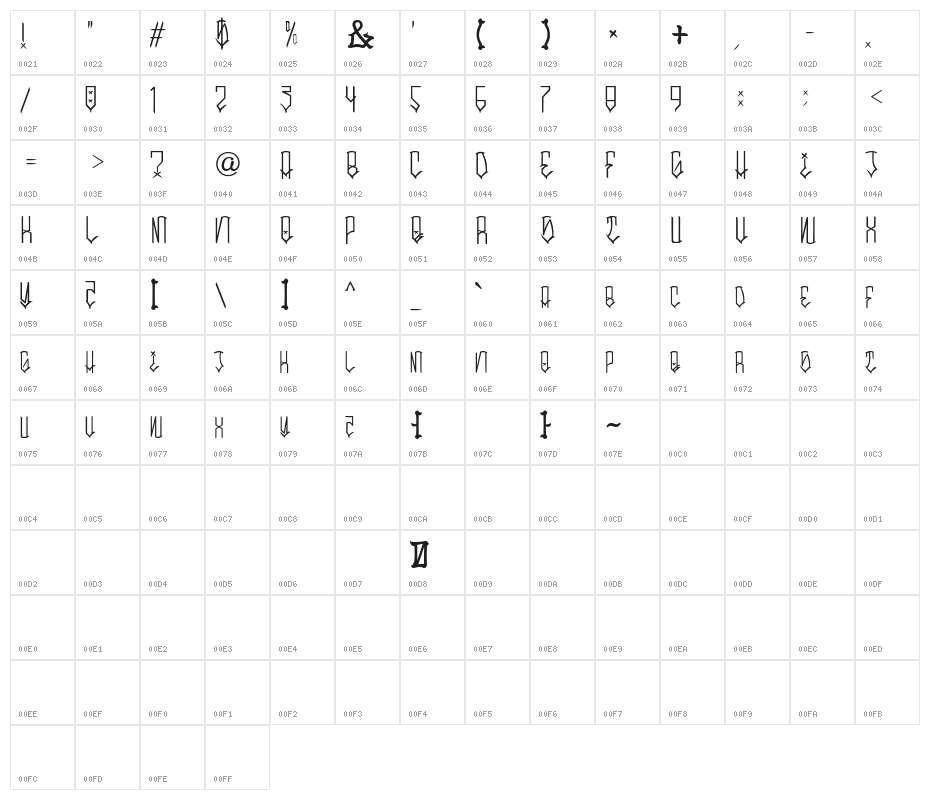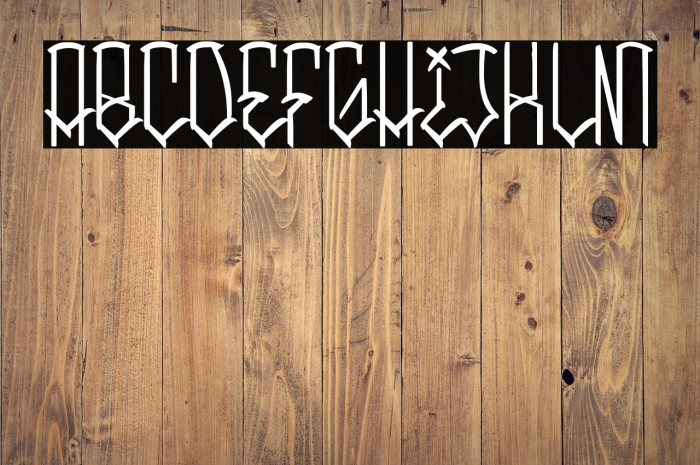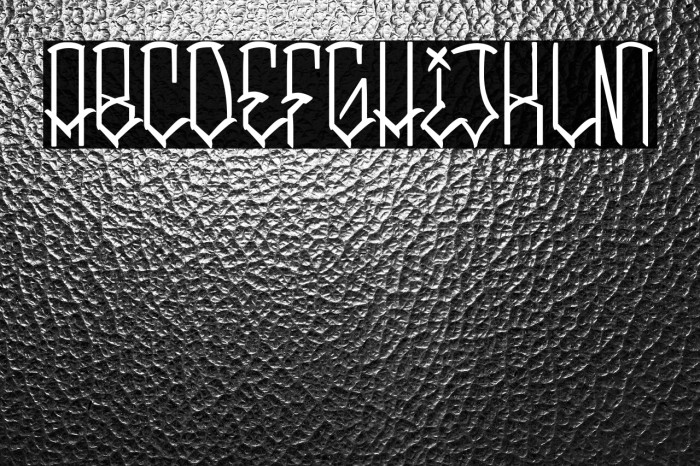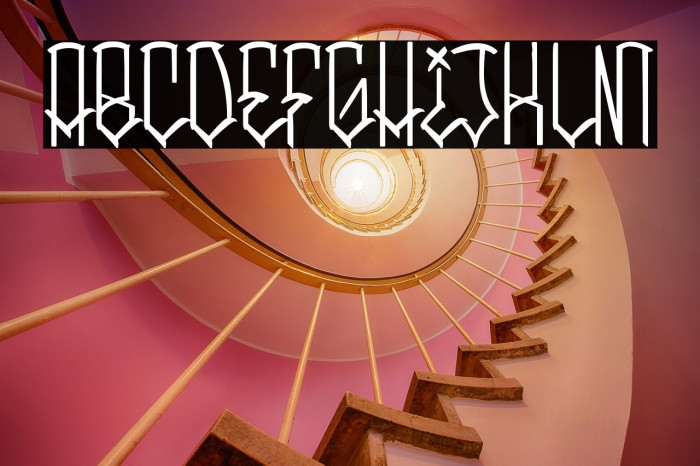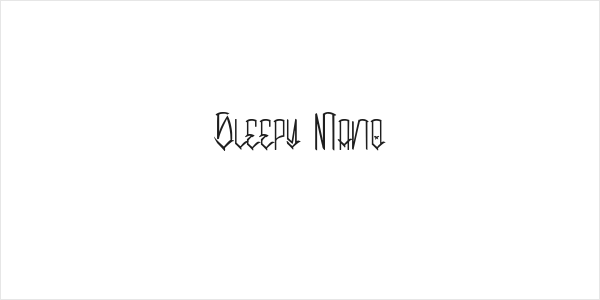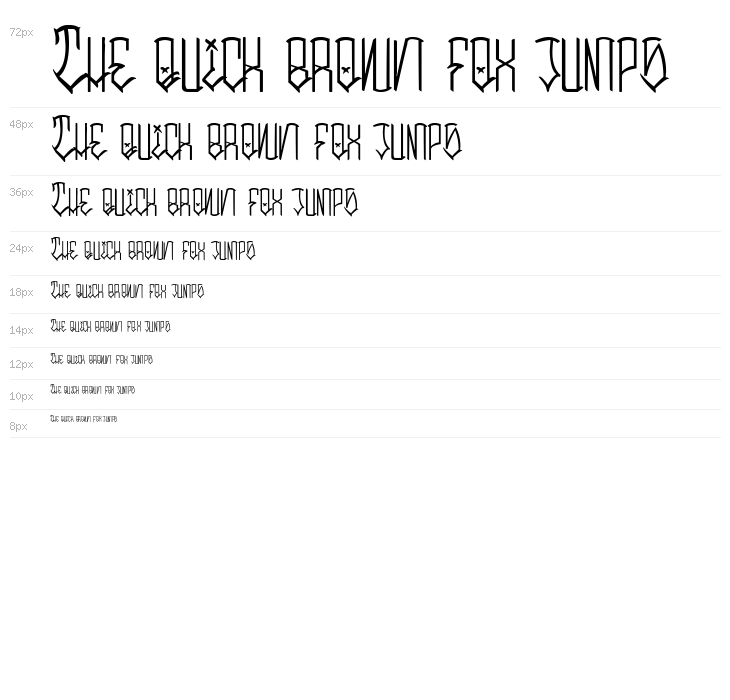
Sleepy Mano Font
Sleepy Mano Description
This font features a unique and edgy design with sharp angles and distinctive geometric shapes. The characters are constructed with a blend of straight lines and pointed edges, giving it a modern and somewhat futuristic appearance. The uppercase and lowercase letters maintain a consistent style, with the uppercase being more pronounced. Numbers and special characters follow the same angular theme, ensuring uniformity across all glyphs. The font's design is bold and eye-catching, making it suitable for projects that require a strong visual impact.